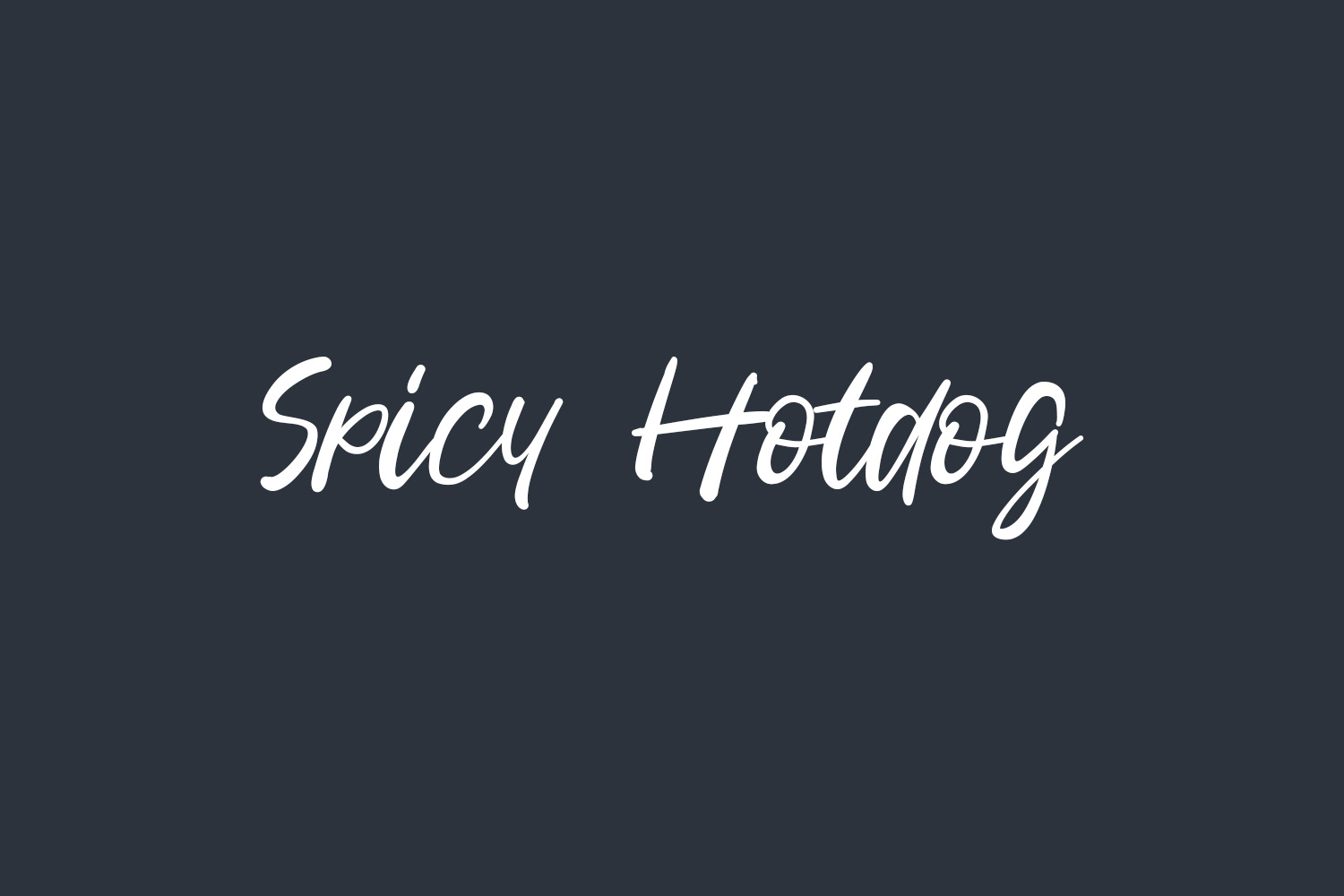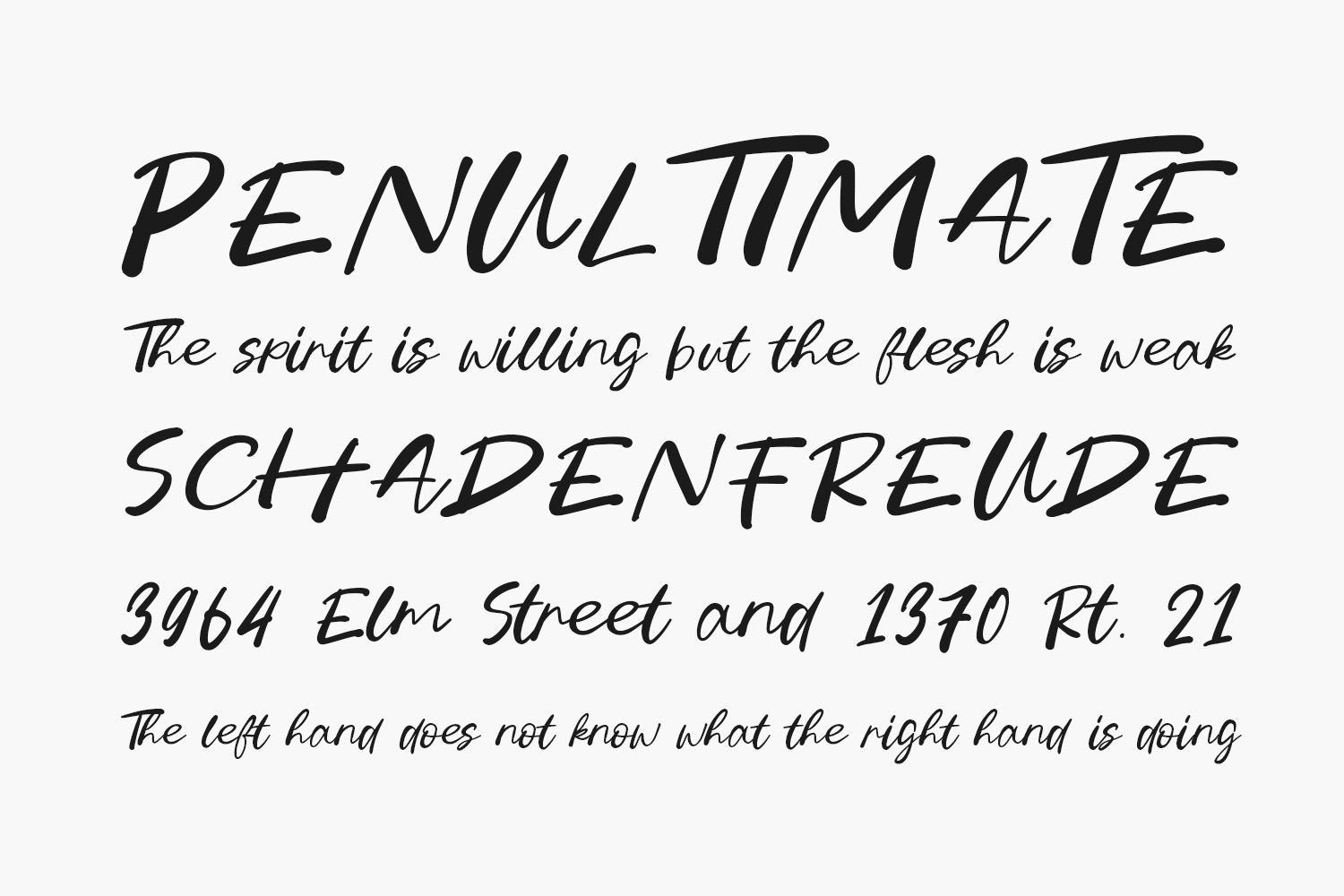
Spicy Hotdog Free Font is a charming, trendy, contemporary, and sophisticated script font that’s ideal for posters, logos, magazines, book covers, banners, and much more! Acquire this fantastic font and employ it to craft delightful designs. It harmonizes effortlessly with an extensive range of projects, so integrate it into your creative concepts and experience how it elevates their impact. Spicy Hotdog Free Font is free for personal use only. Please purchase the full version for commercial use.